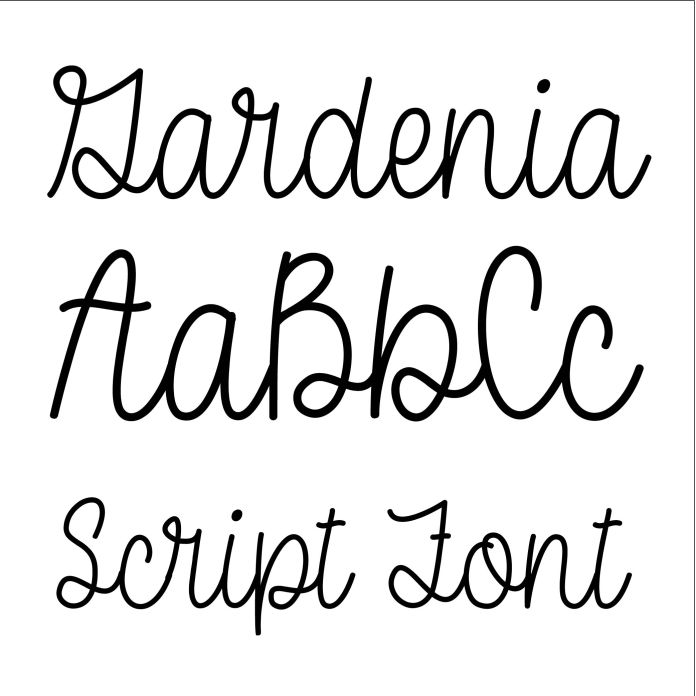
A pretty script font in sweet vintage neat cursive handwriting style, cute for holiday crafts, planners, notes, signs, cards, invitations, monograms, and personalization projects. Includes alphabet, numbers, and punctuation.